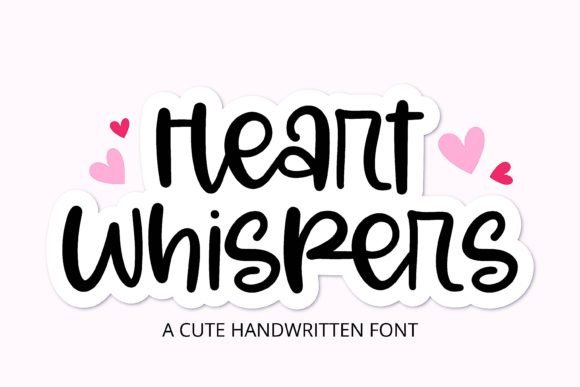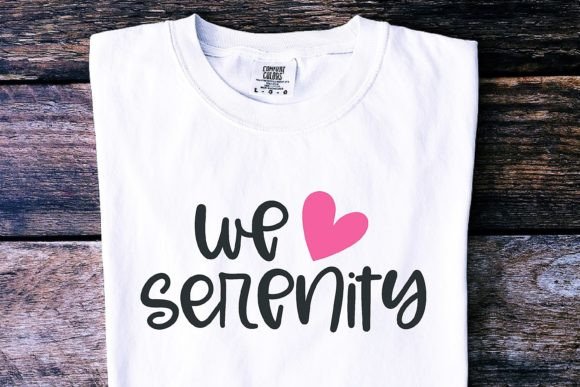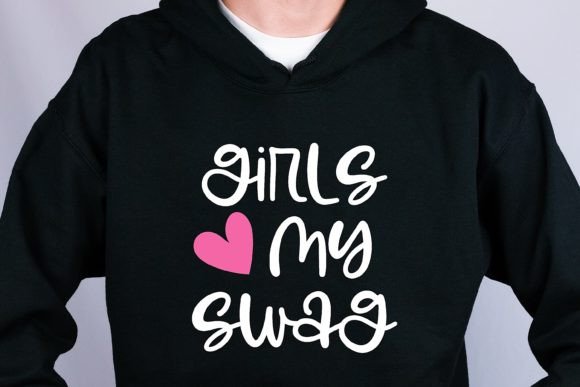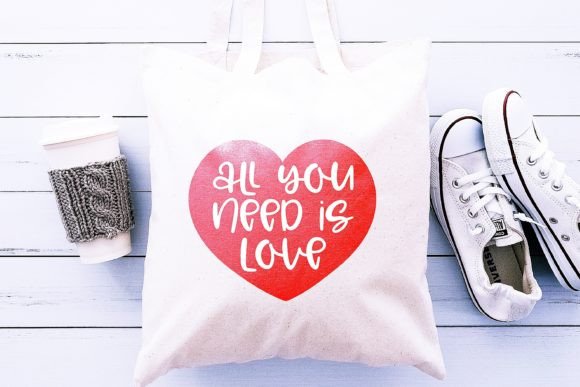
Heart Whispers Font: A Cute Handwritten Font for Cricut & DIY Projects
About the Heart Whispers Font
Step up your design game with Heart Whispers Font, a font that exudes confidence and style. Heart Whispers is a cool, friendly, and informal handwritten font that can be used for all chalkboard quotes or teaching material! Its authentic look and feel will add a personal and realistic touch to your designs.
Heart Whispers excels in projects requiring a personal and approachable feel, such as wedding invitations, social media graphics, or children’s book illustrations. Its informal nature makes it ideal for short quotes, headings, and logos where a handwritten aesthetic is desired. However, avoid using it for large bodies of text or UI elements; its informal character and inconsistent stroke weights hinder readability in extended use.
This font pairs well with clean sans-serif fonts like Open Sans or Lato for a balanced contrast, creating a modern yet friendly feel. Alternatively, a classic serif like Garamond or Playfair Display adds a touch of elegance and sophistication, grounding the informality of Heart Whispers. Avoid pairing it with other script fonts, as this can lead to visual confusion.
The overall personality of Heart Whispers is friendly and approachable, conveying a sense of warmth and authenticity. Its casual charm makes it unsuitable for projects requiring a formal or serious tone.
Heart Whispers Font Usage Examples
Heart Whispers Font Example